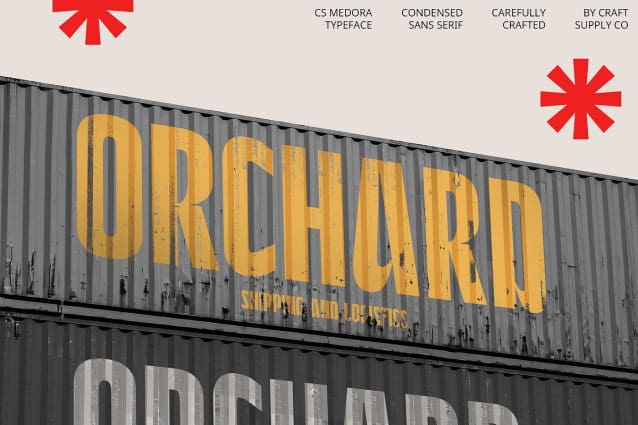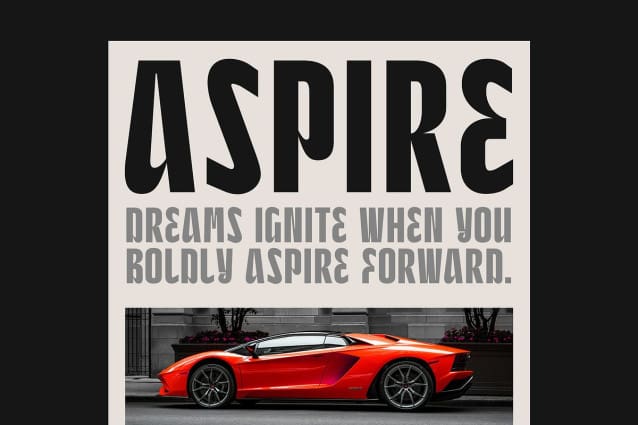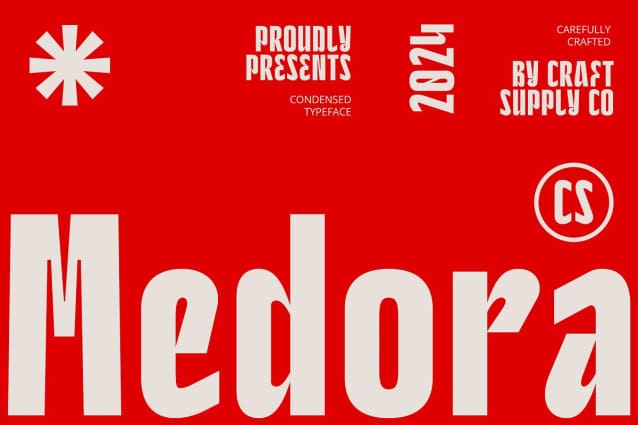
CS Medora Font
CS Medora Font is a modern sans-serif font that commands attention with its bold and condensed letterforms. The dense character shapes and tight spacing create a powerful visual impact, allowing for maximum efficiency in limited spaces. This bold font design is ideal for projects that require a strong, assertive presence, all while maintaining clarity and readability, even at larger sizes or in narrow layouts.
Perfect for Headlines and Attention-Grabbing Designs With its striking appearance, CS Medora is perfectly suited for headlines, posters, and other display purposes where a bold statement is needed. The condensed design ensures that the font fits well into compact spaces without losing its visual strength, making it ideal for advertising campaigns, product packaging, and impactful branding. Whether used for print or digital media, this font is built to stand out and leave a lasting impression.
Efficient Design for Space-Limited Projects CS Medora’s condensed style is particularly beneficial in designs with limited space. Its dense letterforms and tight character spacing allow more information to be conveyed without sacrificing the bold and professional appearance. This efficiency makes it a go-to choice for layouts like banners, signage, or logos where space is at a premium, ensuring that the message is both visually effective and easy to read.